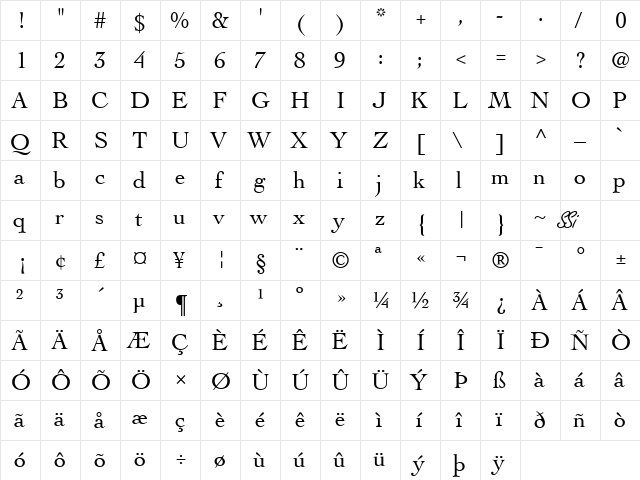
Thesis SSi Regular
Thesis SSi offers clean, dependable letterforms without strong stylistic allegiance, making it a practical choice for designers who need flexibility.